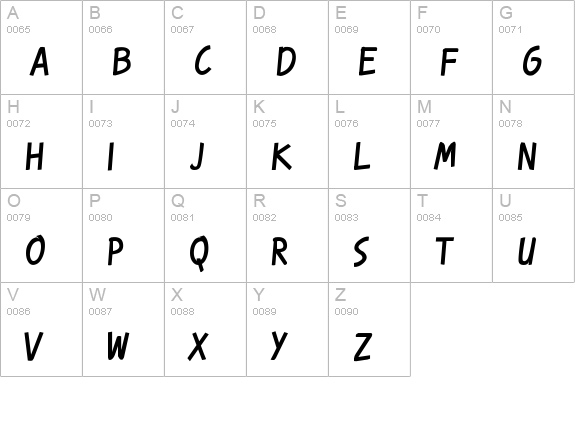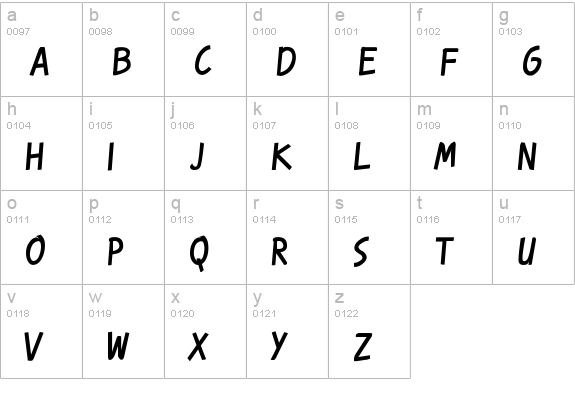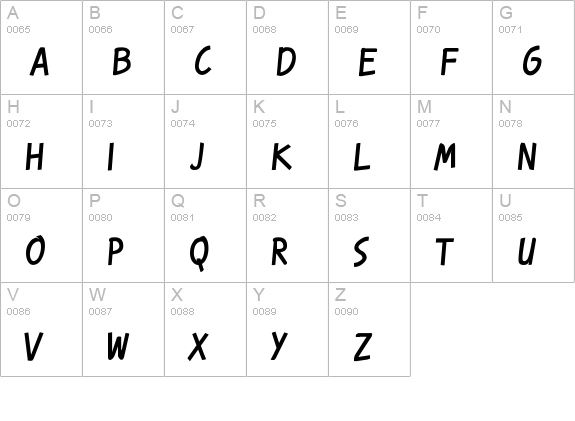
Karmatic Revolution Font Details
The Karmatic Revolution font is a stunning display font that embodies the essence of rebellion and innovation. With its bold and edgy design, this font is perfect for making a statement and capturing attention. What makes the Karmatic Revolution font even more remarkable is that it is not only visually striking, but also free to use. That's right, this incredible font is freely available to download at FontsMarket.com. Whether you're a graphic designer, a content creator, or simply someone looking to add a touch of uniqueness to your projects, the Karmatic Revolution font offers endless possibilities. With its sharp corners and distinctive letterforms, this font exudes a sense of energy and dynamism. It is bound to add an extra layer of impact to any design, whether it's for posters, logos, headlines, or social media graphics. The Karmatic Revolution font is versatile and adaptable, allowing you to experiment with different styles and create stunning compositions that truly stand out. The Karmatic Revolution font is not just a typeface, but a revolution in itself. It breaks free from the conventional norms and embraces a new era of creativity and expression. It empowers you to break the mold and unleash your own unique vision. So why settle for ordinary when you can make a bold statement with the Karmatic Revolution font? Download the Karmatic Revolution font now, and join the revolution of creativity. Let this font be your ally in creating designs that leave a lasting impact. Remember, it's free and readily available at FontsMarket.com. Embrace the power of Karmatic Revolution and let your imagination run wild.